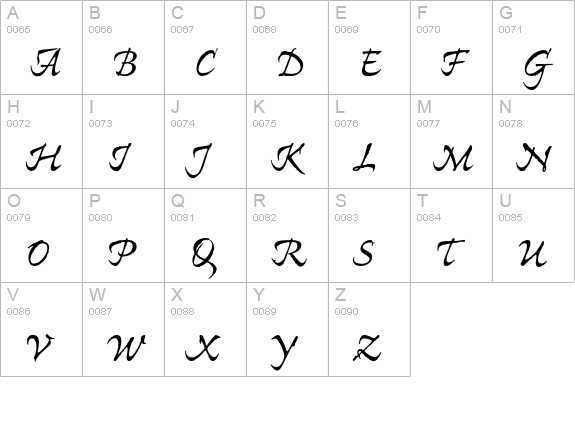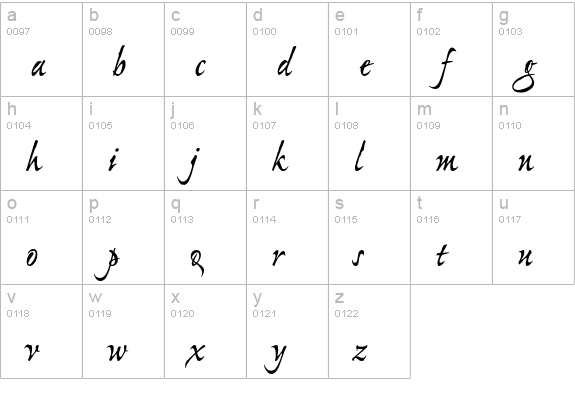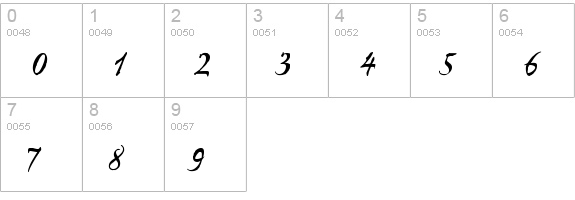
Ex Ponto Pro Bold Font Details
Ex Ponto Pro Bold is a strong, high-contrast variant in the Ex typeface family \xE2\x80\x94 well suited to headlines, attention-grabbing titles, and strong calls-to-action.
Ex Ponto Pro Bold is a striking and modern typeface that exudes confidence and sophistication. With its bold weight and elegant design, this font commands attention and makes a statement in any design project. Whether used for headlines, branding, or editorial purposes, Ex Ponto Pro Bold is sure to make a lasting impression. The clean lines and sharp edges of this font give it a contemporary look that is perfect for conveying a sense of professionalism and authority. Its versatility allows it to be used in a variety of design applications, from print to digital media. And the best part? Ex Ponto Pro Bold is available for free download at FontsMarket.com, making it easily accessible to designers and creatives looking to elevate their work with a high-quality typeface. Don't miss out on this opportunity to enhance your projects with the bold and impactful Ex Ponto Pro Bold font.